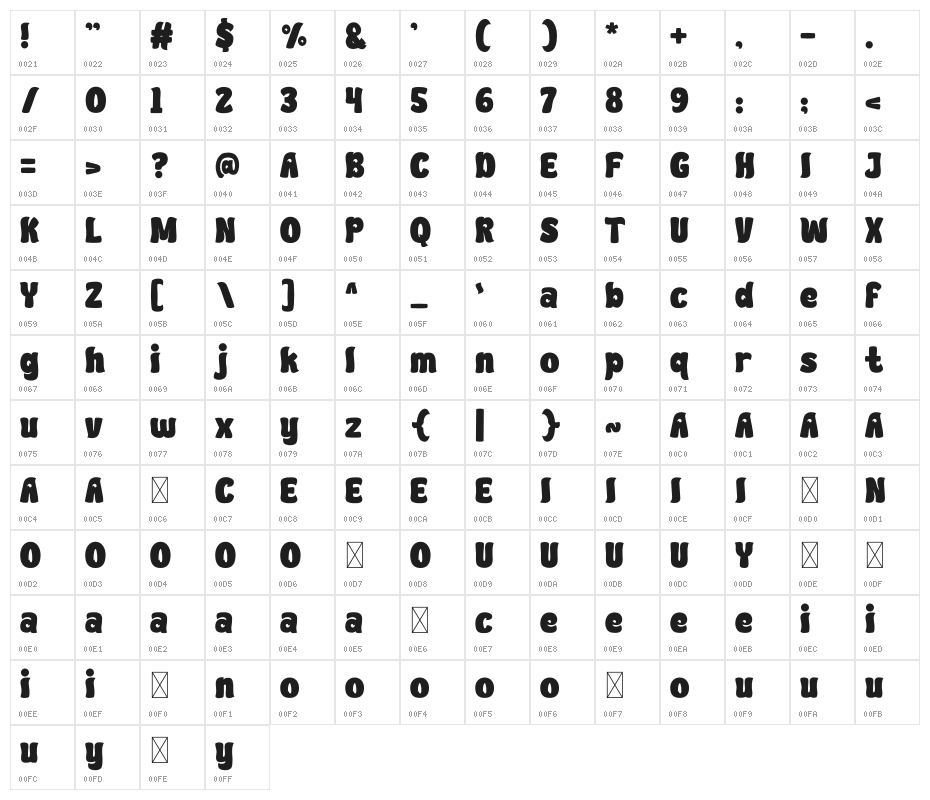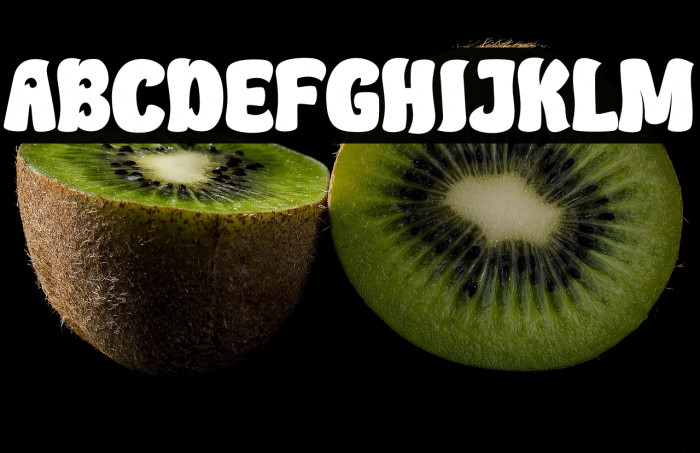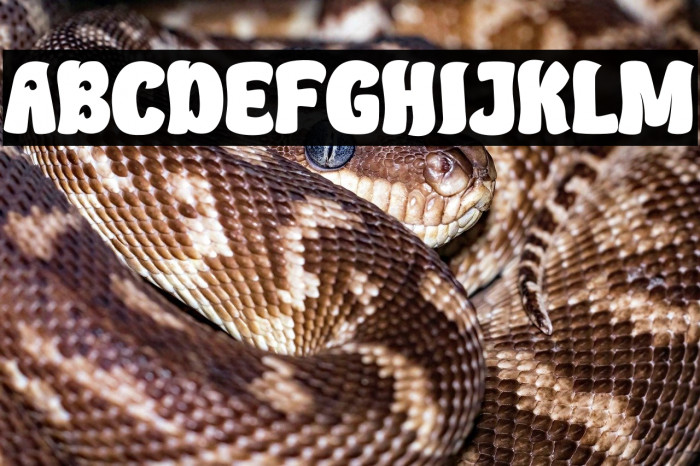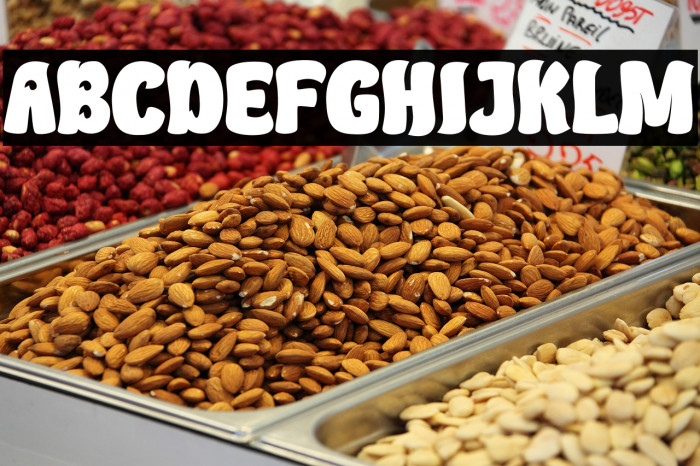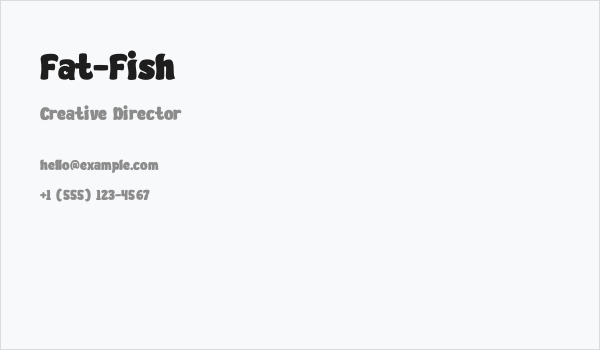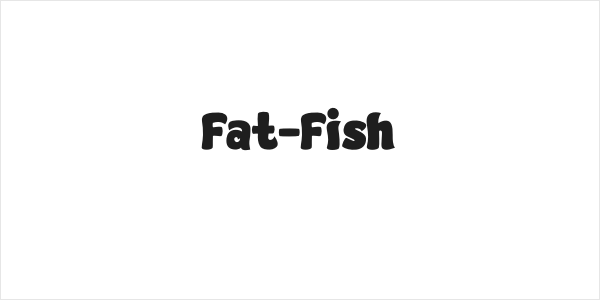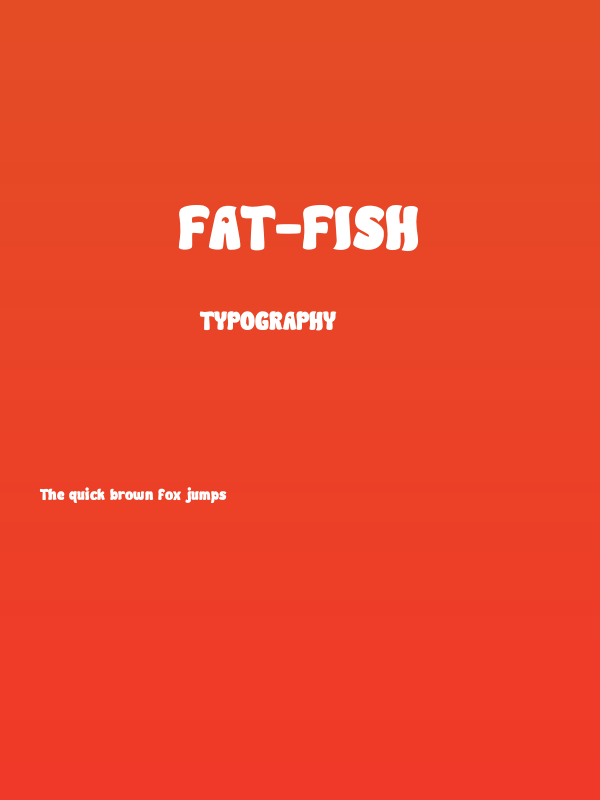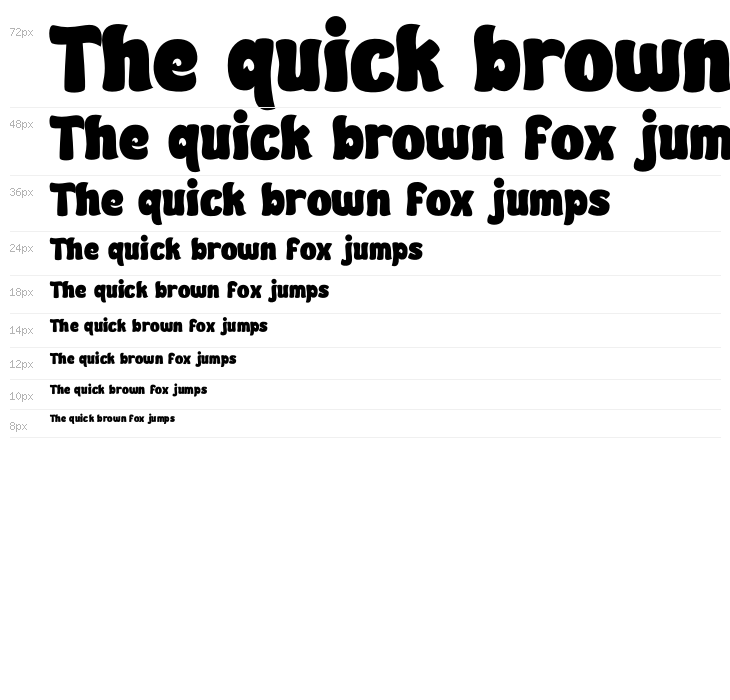
Fat-Fish Font
Fat-Fish Description
This font features a bold, playful style with thick, rounded strokes that give it a friendly and approachable appearance. The characters are heavily weighted, creating a strong visual impact, while maintaining a smooth and flowing form. The uppercase and lowercase letters are consistent in their rounded design, and the numerals and special characters follow the same aesthetic, ensuring uniformity across all text. The font's design is ideal for capturing attention and conveying a sense of fun and creativity.
| Overall Style | Playful, Fun, Bold |
| Proposed Projects | Ideal for children's books, playful branding, posters, and any project needing a fun and bold typeface. |